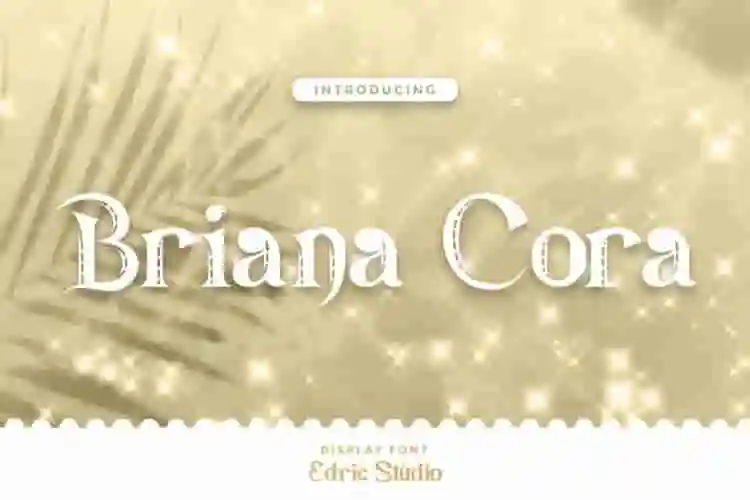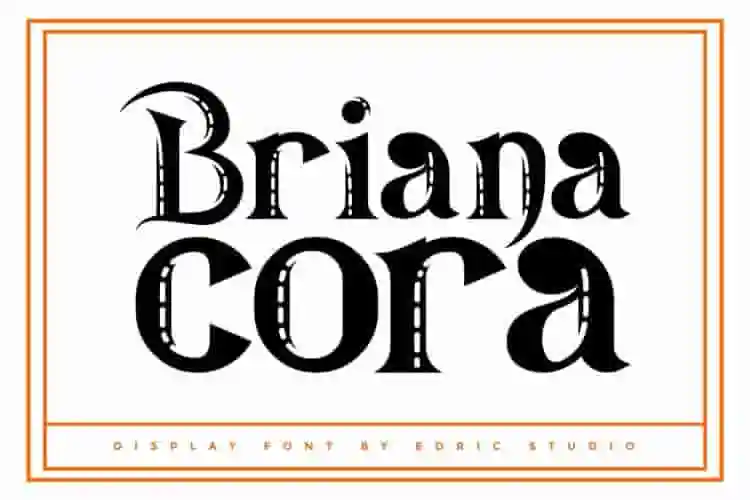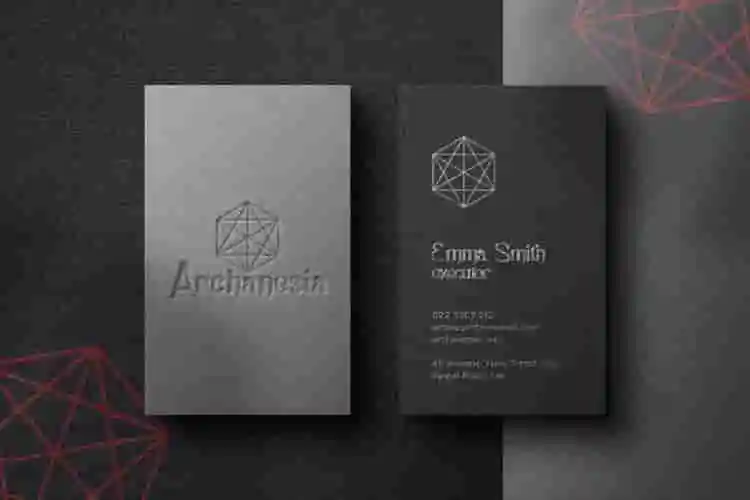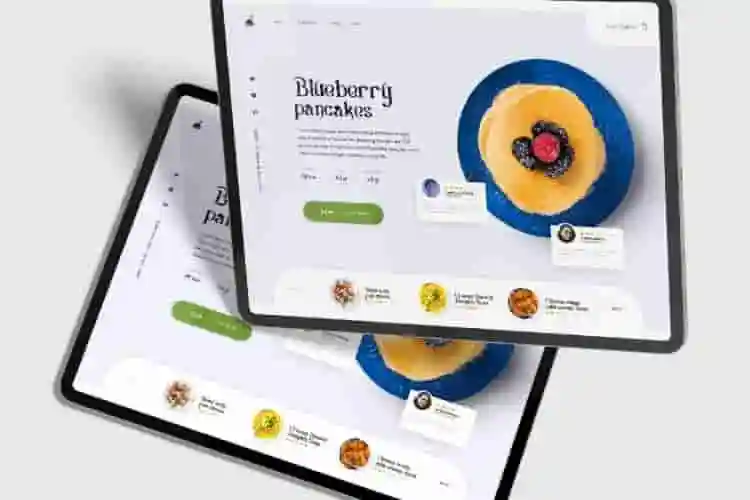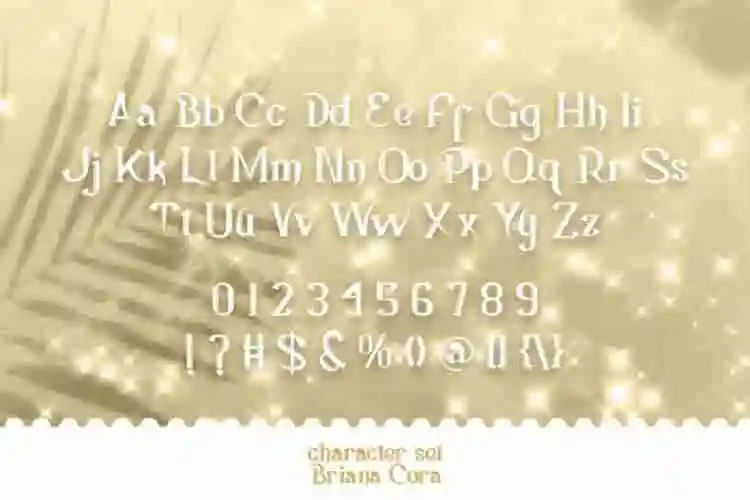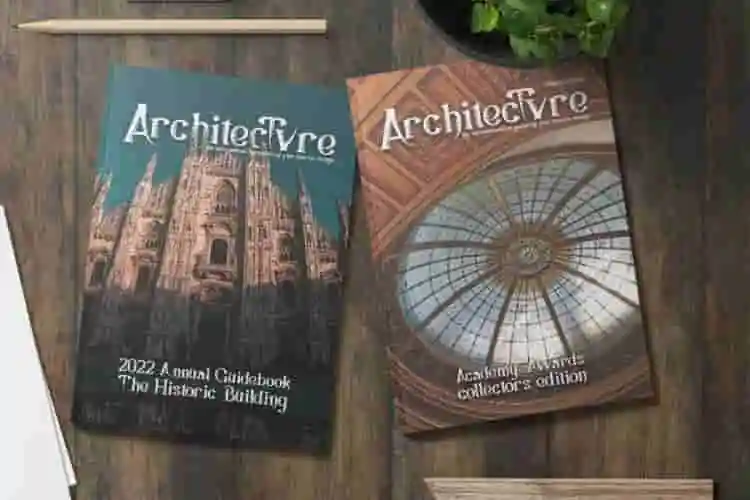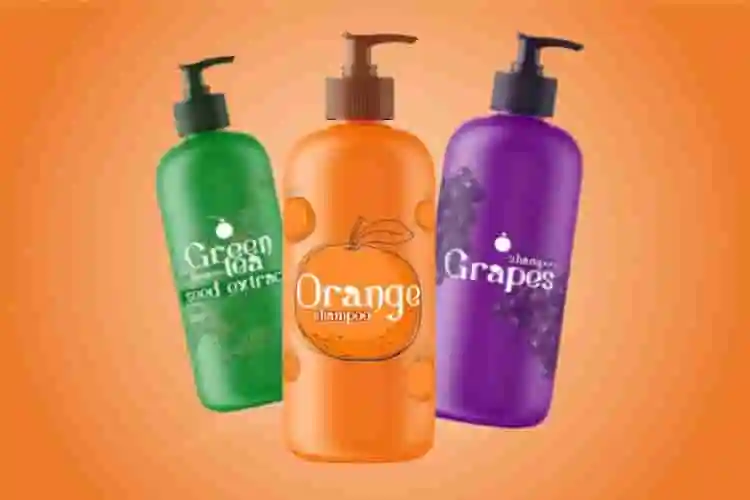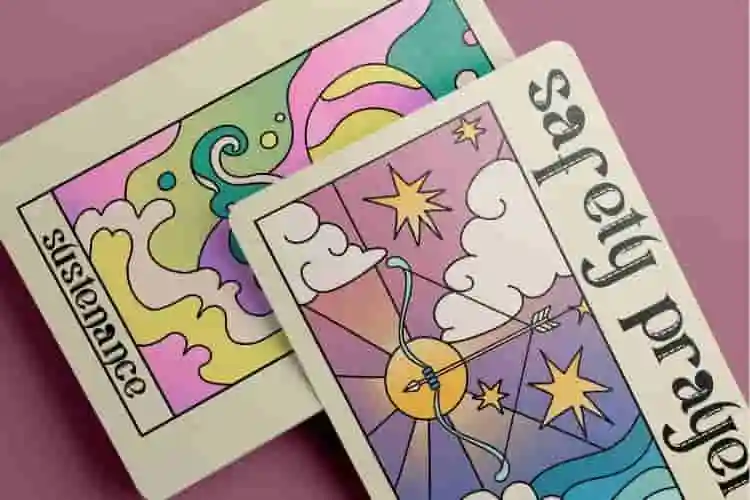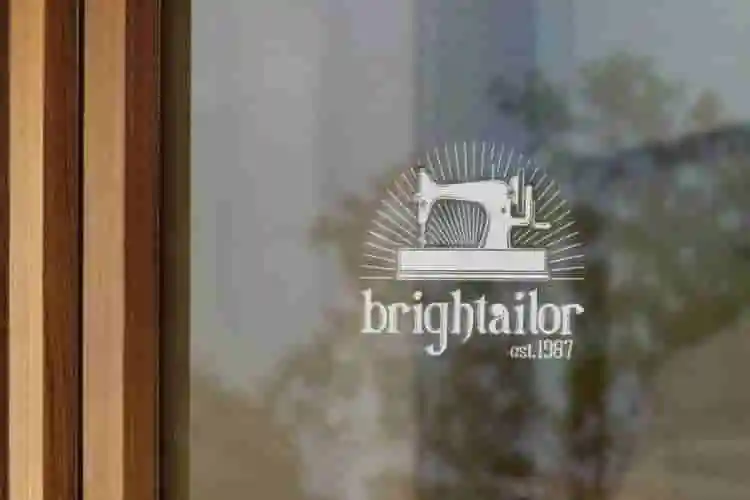
Briana Cora Display Font
Briana Cora Font is a unique display font with vintage look, created by EdricStudio. This font has bold letters with pointed edges and added road strip effect that make it stand out. Almost all industries will be match for this typeface, including antique shop, architect, craft, culinary, game, homeware, movie, museum, publishing, tailor, technology, etc.
Briana Cora Font comes with a full set of Uppercase and Lowercase Basic Characters, Number, large range of Punctuation, and Symbol. It has a stunning characters set, perfectly managed with well spaced and kerning. Briana Cora Font will be great for any projects (with extended license) including : blog headers, business card, headline, interior design, label, magazine, printed materials, product packaging, signage, etc.
Introducing Briana Cora, a modern display font that blends elegance with bold personality. Designed for standout headlines, stylish logos, and refined branding, Briana Cora delivers high contrast, artistic curves, and timeless sophistication.
With its unique letterforms and balanced proportions, Briana Cora is perfect for fashion lookbooks, product packaging, magazine titles, logo design, and more. It’s bold enough to stand on its own, yet versatile enough to pair beautifully with minimalist typefaces.
Meet Briana Cora, a sophisticated display font designed for brands that want to stand out with elegance and confidence. With its high contrast, stylish curves, and refined shapes, Briana Cora is made to make a statement — whether in print or on screen.
• Elegant Display Typeface
• Ideal for Premium Branding
• Multilingual Support